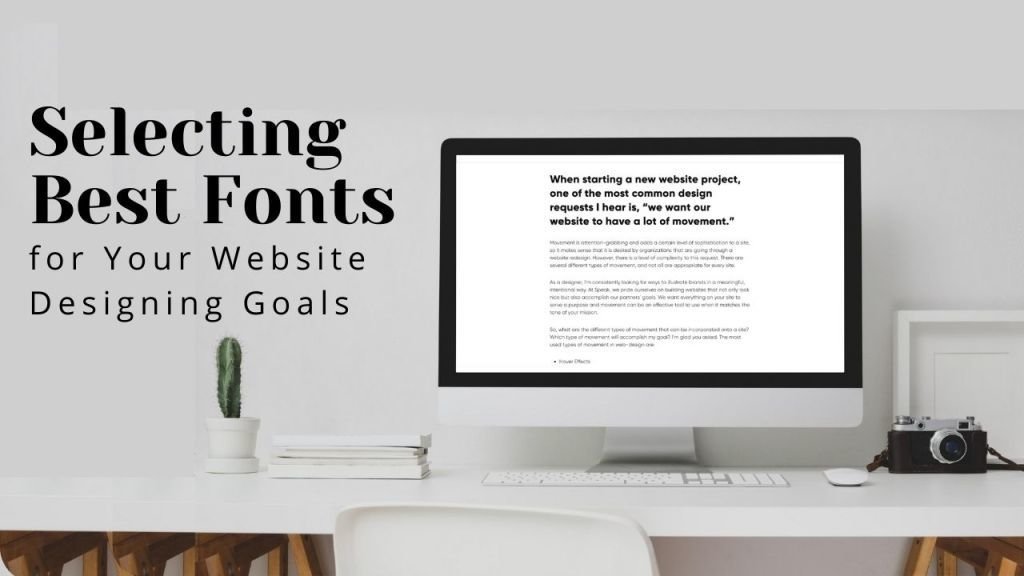
Selecting Best Fonts for Your Website Designing Goals
There’s so much more than your landing page typography that’s going to retain the user attention for your website content, particularly the text. Your website content is the mirror that reflects your business category & objective before the visitors. And the website content is made up of many big & small elements that together contribute to the user interest & engagement and consequently brings potential leads for your business goal. Fonts are also an indivisible portion of your website content. It serves your website visitors with different experiences as reading is the very next thing the users jump to after analyzing visuals on your website.
There’s so much the users can interpret & understand from your website blogs & page title about your target goods, services or online subject. Therefore, writing holds a special place in your website frontend and you have to take care of its informational as well as visibility aspects.
Let’s talk about the best fonts for your website designing goals in this article and get started with an innovative online appearance approach as such. We’ll explain how you can optimize the reading experience of your visitors by using the right website fonts & writing styles.
What do We Mean By Website Fonts?
Website fonts are various themes & styles representing everything related to your website text data, except for advertisements. Your website text reflects your website’s theme & complete aura. You can attract a specified audience through your website’s unique font. For example, if you want to create a blog that represents the metal genre of music you need to go for a gothic, lordish or a tribal style to attract your target audience. Even if the words & letters are going to be a little out of track the users won’t leave for anywhere else. You just have to focus on what you’re offering as information, goods or services.
You’re expected to follow the brand guidelines associated with your website font if any. If not introduced to your brand guidelines yet you can follow the enlisted standards to create your own:
Website Theme
The first aspect is selecting the right website theme for your business. It is not only the website font that’s going to reflect your business aura alone. If you’re using a website builder tool like WordPress, the font you decide to go with is essentially going to be affected by the WordPress Theme you choose. There are specified colors, layouts, space, navigation structure that you’re going to work with. Though there are certain plugins that offer you drag & drop options through which you can alter your web page elements’ position, you won’t be able to change the entire appearance of your website theme just to support your website font.
Matter of Consistency
Another important web designing standard you need to remember in this case is to specify consistency with respect to your website font. No matter on how many platforms you want to post your website content it shouldn’t look different from one another in terms of fonts & writing styles.
The users simply don’t like to be tricked with multiple website appearances. There’s no uniqueness or innovation in doing this. You’ll simply piss off your target audience from using various versions or appearance of your website. Keep the same font throughout until you’re not ready to change it entirely.
Match Existing Font
Whenever you add a new form of text content to your website pages, take care of the font so that the user could not get confused over another paragraph or segment of your content. You can create certain variations between your content body & title but have to further show consistency regarding other blog posts or topics on your website. Don’t use different fonts for different blog posts on your website.
How to Select Best Fonts for your Web Designing Goals?
We know that you might be waiting for a substantial decision regarding your website font & styling. In this segment we will suggest the right approaches you can follow to decide for your website font and create the best out of your designing skills. Let’s explore how you can choose the best fonts for your website appearance:
1. Determine your Brand Personality
Personality is the very first thing a font depicts, whether virtual or physical. What do you depict from the font in the physical newspaper that you read every morning. Almost all such newspapers follow the same font & same news title styles and changes quite infrequently over time. The readers get used to the newspaper fonts as such & can easily differentiate between newspapers & magazines. In this way you also have to determine your brand personality first and then go for a corresponding website font.